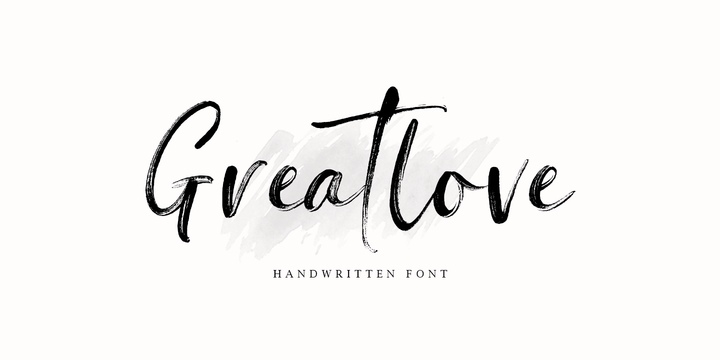
Greatlove Font
Greatlove Font is perfect for romantic wedding celebrations, heartfelt anniversary cards, passionate love letters, intimate relationship branding, Valentine's Day marketing, romantic event planning, loving family communications, and deep emotional expression campaigns.
What makes Greatlove Font exciting is its profound affection that embodies the depth and magnitude of true love with heartfelt authenticity and emotional sincerity. The font features warm letterforms with loving proportions and heartfelt character variations that evoke love declarations, tender embraces, and the overwhelming beauty of deep romantic connection and emotional intimacy. Its distinctive loving styling and romantic appeal communicate devotion, passion, and emotional depth, making every message feel written from the heart and touched by the profound beauty of great love and romantic devotion.
The Greatlove Font family includes regular weight with uppercase and lowercase letters, numerals, punctuation marks, and special characters. Premium versions often feature romantic alternates and heartfelt flourishes that enhance the passionate, emotional aesthetic perfect for love and relationship applications.
This deeply romantic typeface brings instant emotion and heartfelt credibility to any love-focused project. Greatlove Font Free Download delivers exceptional results for romantic businesses and relationship services seeking to communicate profound love, emotional depth, and heartfelt devotion to couples and love-centered audiences.
The passionate character of Greatlove Font makes it particularly valuable for wedding industry professionals, romantic retreat centers, and love-focused service providers. Its excellent readability ensures romantic messaging and emotional communications remain clear while maintaining the distinctive loving aesthetic that appeals to couples seeking deep emotional experiences and profound romantic connections.
Romantic relationship marketers appreciate how Greatlove Font effortlessly conveys emotional authenticity and profound affection. The font's warm proportions and heartfelt details create beautiful brand materials that establish deep emotional connections with audiences who value true love, romantic devotion, and the passionate expression of great love and emotional intimacy.
The versatile devotion of this typeface extends to relationship counseling, romantic gift companies, and love coaching services where emotional authenticity enhances romantic credibility and heartfelt appeal. Greatlove Font Free Download provides creative professionals with an essential tool for developing memorable, love-driven designs that resonate with audiences who embrace profound romance, emotional depth, and the transformative power of great love in their romantic and relationship experiences.